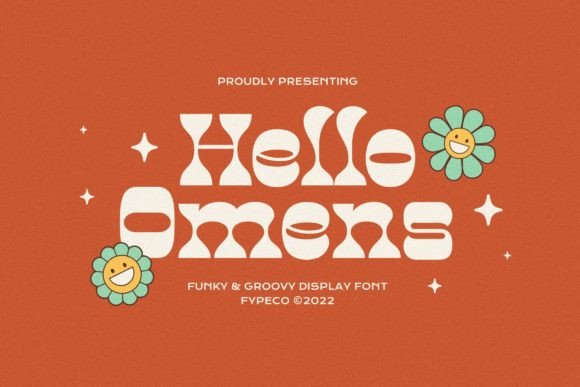
Embark on a Typographic Voyage with Hello Omens: Your Passport to Design Destinations
In the realm of visual communication, Hello Omens font unfurls its banner as a typographic trailblazer, beckoning you to embark on an extraordinary design odyssey. With its captivating retro charm and groovy demeanor, Hello Omens transcends the boundaries of ordinary fonts, inviting you to infuse your creative endeavors with a splash of vintage allure.
Picture yourself crafting travel posters that exude an air of wanderlust, evoking the golden age of exploration. The world is your canvas, and Hello Omens is your brush, allowing you to paint vivid tales of distant lands and forgotten treasures. Unleash your inner adventurer and let your designs transport your audience to faraway destinations, igniting their imaginations and leaving them yearning for more.
Hello Omens is not merely a font; it's a gateway to a bygone era, a time when typography danced to the rhythm of adventure and discovery. Its unique display style, reminiscent of vintage travel posters, effortlessly captures the essence of exploration and wanderlust. Embrace the spirit of the open road, the thrill of the unknown, and let Hello Omens guide your designs to new horizons.
Beyond travel posters, Hello Omens adapts seamlessly to a myriad of creative pursuits. Its versatility shines in logos, branding, packaging, social media graphics, and even apparel design. Imagine your brand adorned with the distinctive charm of Hello Omens, standing out from the crowd with a touch of retro flair. Its stylish accent adds a layer of sophistication, ensuring that your designs command attention and leave a lasting impression.
Hello Omens is more than just a collection of letters; it's an invitation to embark on a typographic adventure, to explore the uncharted territories of creativity and leave your mark on the world of design. Its retro vibe, coupled with its versatility and stylish accent, empowers you to craft designs that resonate with a sense of nostalgia and wanderlust.
So, seize this opportunity to let Hello Omens be your font of choice, your trusty companion on your creative journeys. Let it ignite your imagination, fuel your wanderlust, and propel your designs to new heights. Embrace the allure of the unknown, the beauty of the forgotten, and let Hello Omens guide you towards typographic triumphs.